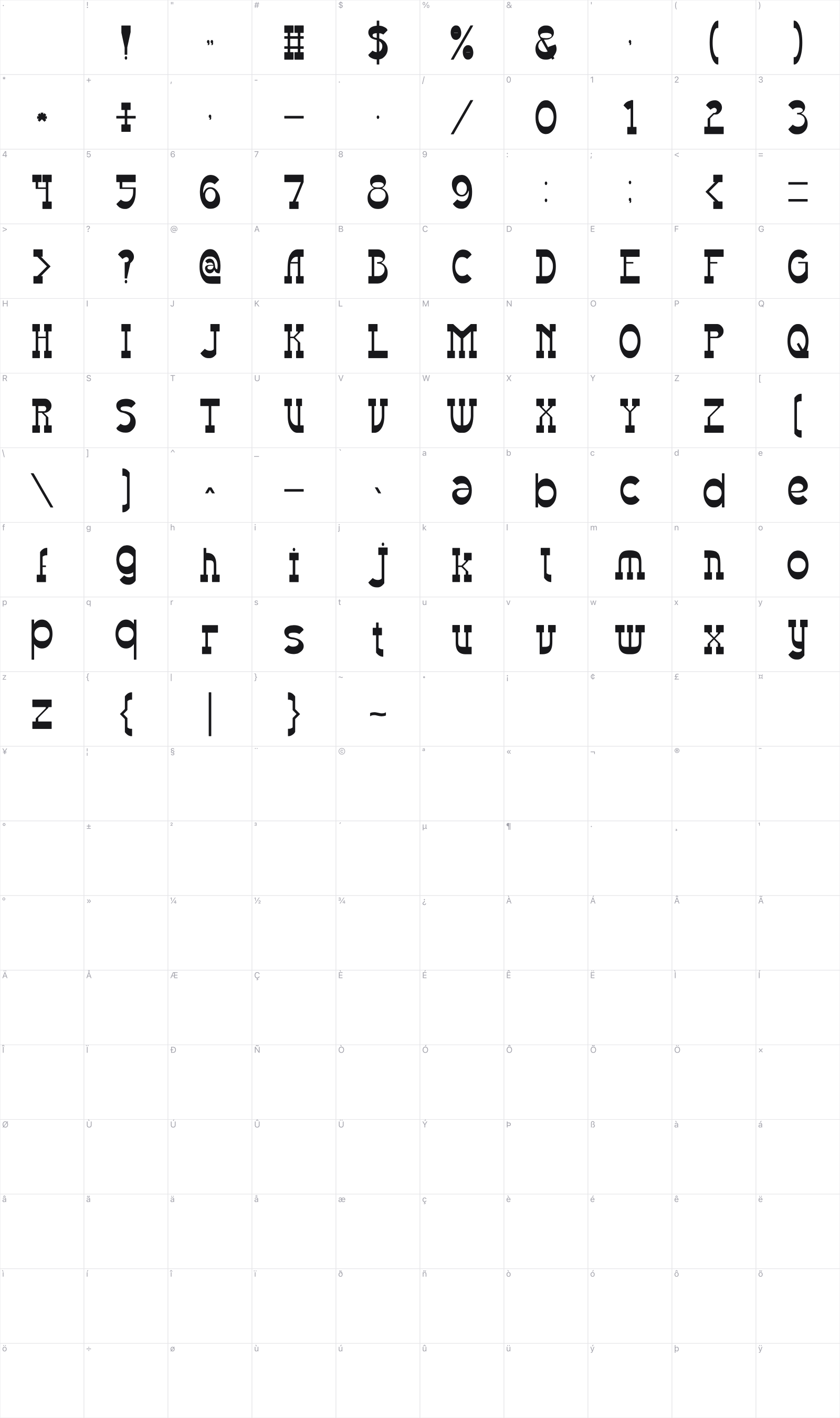
Western Eastern
Western Eastern is a bold, decorative slab from weknow that plays with classic saloon-style lettering while keeping things slightly off-beat and quirky. The heavy strokes and vintage ornamentation feel rooted in Old West signage, but there's a looseness to the letterforms that keeps it from being a straight period piece. Best for headlines, posters, and display work where you want frontier character with a little personality baked in.